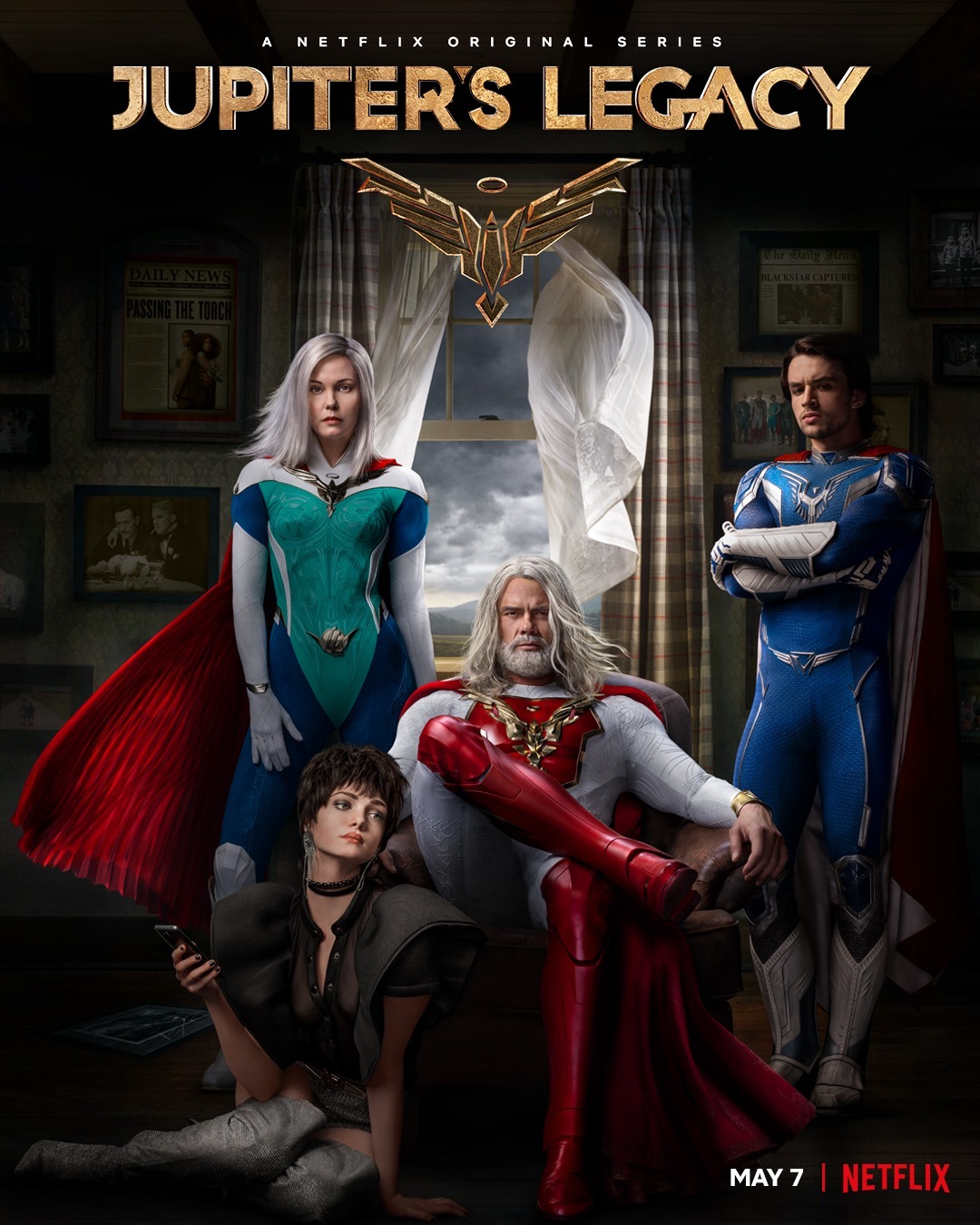
Jupiter's Legacy Font
ActionJupiter’s Legacy is a Netflix original TV series based on the graphic novel of the same name, following the story of the world's first generation of superheroes who must now pass the torch to their children.
The TV series ''Jupiter's Legacy'' appears to have used the GT Haptik font. GT Haptik is a monolinear geometric font released by Swiss type foundry, Grilli Type.